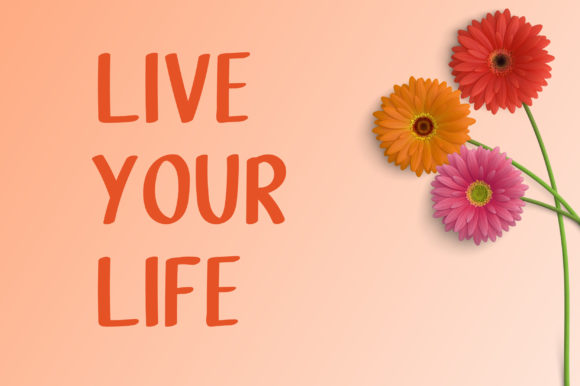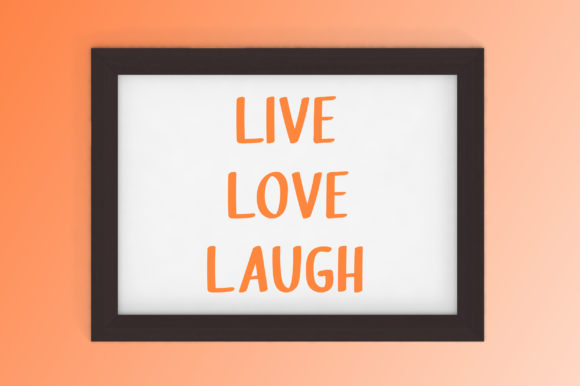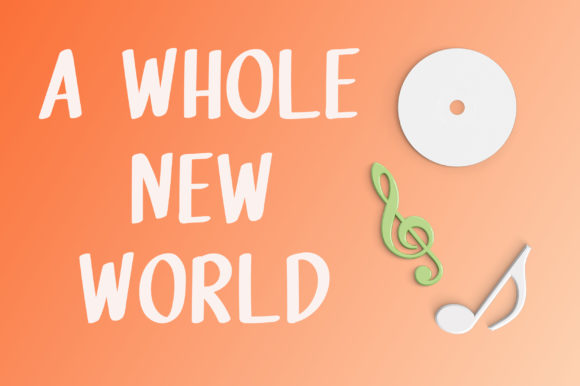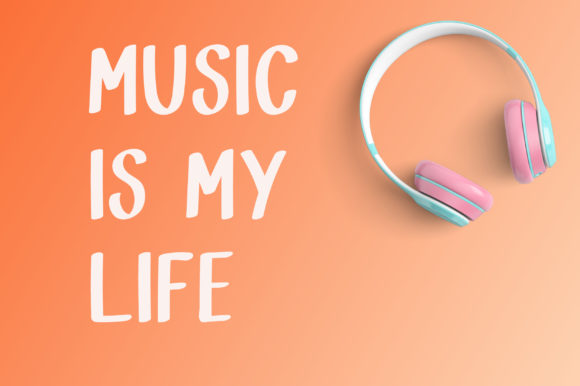
Music Font
About Music Font
Music is a casual, fun handwritten font, created by using a brush pen. Clean and a little bit quirky, this font is the perfect fit for all of your logos, branding, social media, and crafty DIY projects.